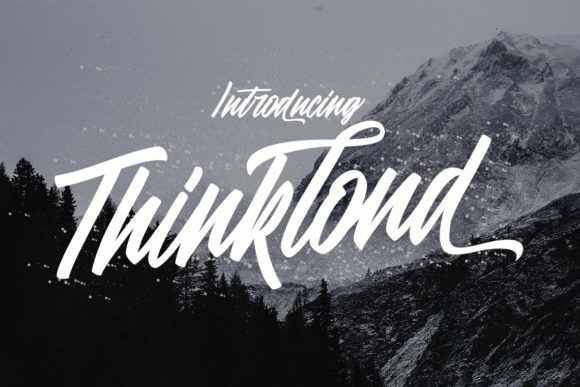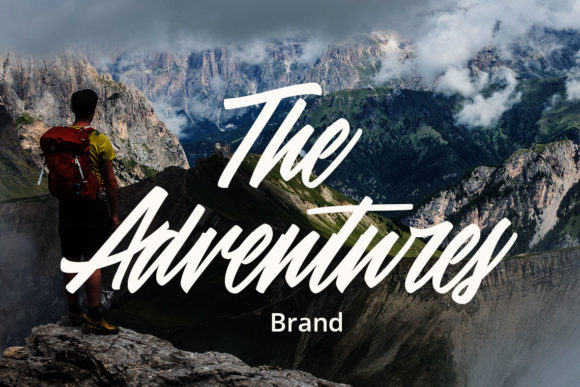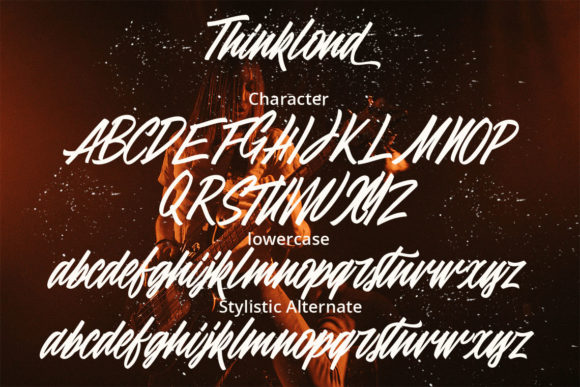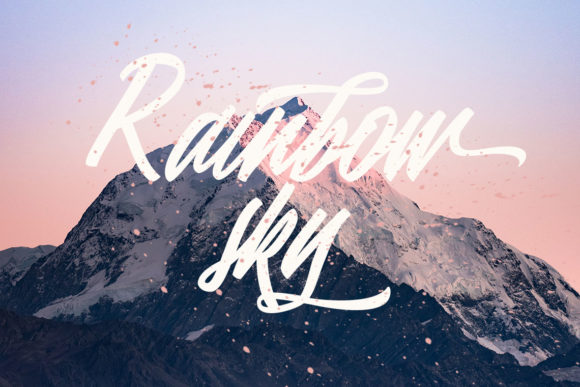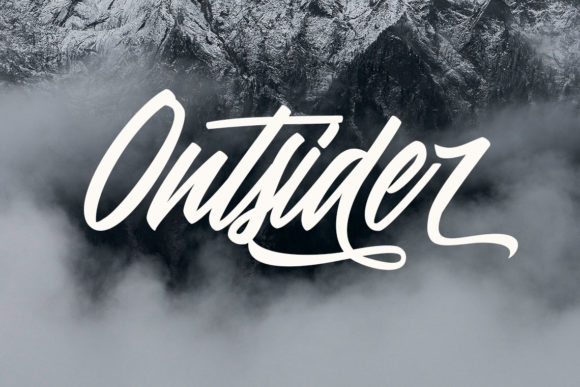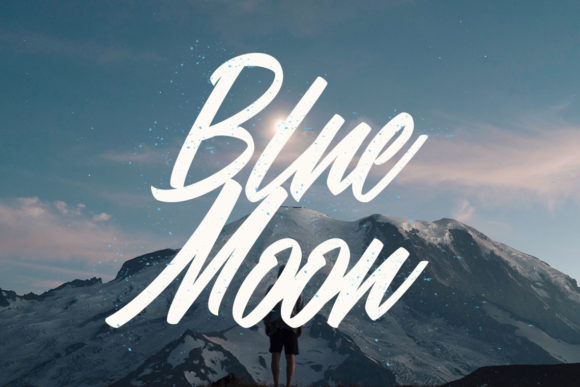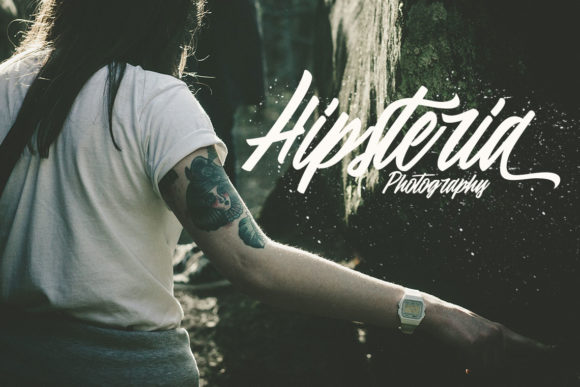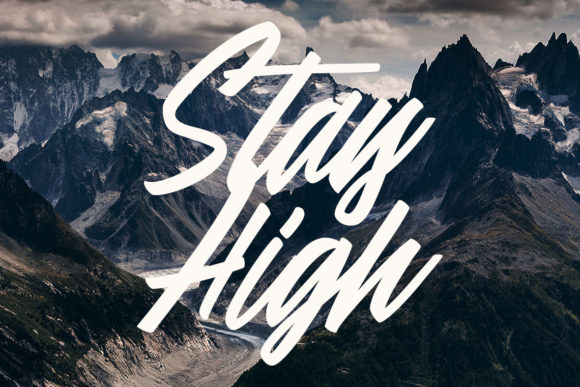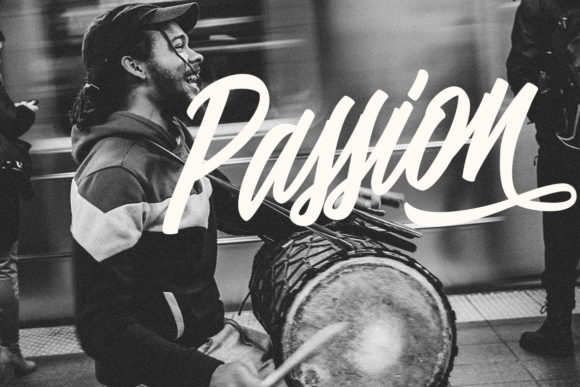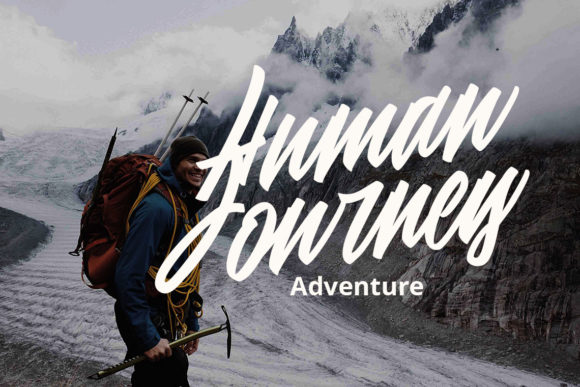
HomeScript FontsThinkloud Font Script Fonts Thinkloud Font FacebookXPinterestWhatsApp Thinkloud Font Poster 2 Thinkloud Font Poster 3 Thinkloud Font Poster 4 Thinkloud Font Poster 5 Thinkloud Font Poster 6 Thinkloud Font Poster 7 Thinkloud Font Poster 8 Thinkloud Font Poster 9 Thinkloud Font Poster 10 Thinkloud Font Poster 11 About Thinkloud Font Thinkloud is an inspiring and radiating script that effortlessly combines beauty and authenticity. DOWNLOAD ON CREATIVE FABRICAThis font is sold and delivered by Creative Fabrica. Font Canyon may earn a commission if you buy through this link. People also explored Jelly Groovy Font Gothic Font The Good News Font Side in Space Font Bright Mandala Monogram Font Monalisa Font Hallsey Font Article Script Font Having Fun Anytime Font 445 0 TagsThinkloud Font Previous articleBaby Elysa FontNext articleOur Santa Font LEAVE A REPLY Cancel reply Comment: Please enter your comment! Name:* Please enter your name here Email:* You have entered an incorrect email address! Please enter your email address here Website: Save my name, email, and website in this browser for the next time I comment. Personal Use Free Pelmeshka Personal Use Free Read more about this font Love Ya Personal Use Free Read more about this font Little Pigeon Personal Use Free Read more about this font JVNE Smoothdron Personal Use Free Read more about this font BLOG Fonts That Capture the Spirit of New York City New York City is more than just a place—it’s an experience, a rhythm, a visual language... Free Fonts Risk: Why Free Fonts Can Be Dangerous for Designers How to Cut Any Font on Cricut: Convert a Font to SVG (Free) Transform Your Website: Elevate Your Typography with 7 Best Web Font Generators